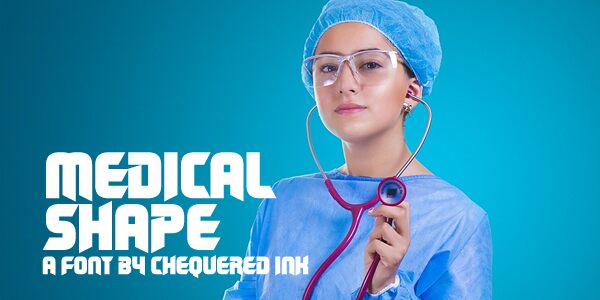
Medical Shape
Medical Shape is a bold and distinctive display font designed by Allison James of Chequered Ink. The strong, geometric letterforms exude a sense of authority and precision, making it an ideal choice for medical and scientific applications. The font's clean lines and angular shapes convey a sense of professionalism and attention to detail, while the overall aesthetic lends an air of modernity and technological innovation. Medical Shape's versatility allows it to shine in diverse design contexts, from medical branding and packaging to scientific publications and technical documentation.
Its impactful visual presence makes it a standout choice for headers, titles, and logotypes, where it can effectively grab the reader's attention and communicate a message of expertise and reliability. With its bold, unwavering presence, Medical Shape is a font that commands respect and inspires confidence in its users.